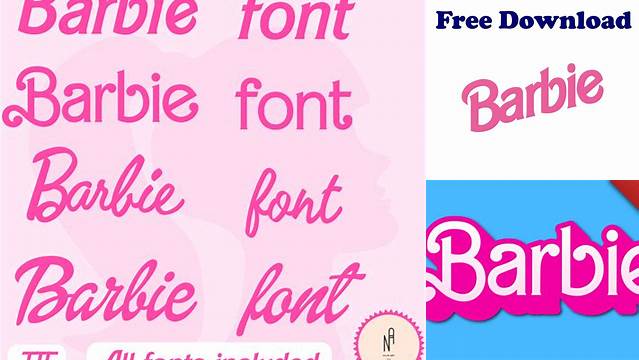
Understanding the Allure of Barbie Font
The Barbie font isn't just a typeface; it's a cultural icon. It evokes memories of childhood, playfulness, and the vibrant world of Barbie. Its bubbly, curvy design is instantly recognizable and adds a touch of whimsy to any project. Whether you're designing a birthday invitation, a social media graphic, or a fun presentation, the Barbie font can instantly elevate your creation and capture the essence of fun and femininity. The font's unique charm lies in its ability to transport viewers back to their carefree days, reminding them of the joy and imagination associated with the iconic doll. By incorporating this font, designers can tap into these nostalgic feelings and create a connection with their audience that goes beyond mere aesthetics.
Identifying the Real Barbie Font
Okay, so what exactly is the real Barbie font? The official font used for the Barbie logo and branding has evolved over the years. However, the most recognizable version is a custom typeface with distinctive, rounded letterforms. While the exact font might not be available for public download due to copyright restrictions, several similar fonts capture the essence of the Barbie aesthetic. Think playful, curvy, and slightly whimsical. When trying to identify the real Barbie font, pay close attention to the unique characteristics of each letter. Look for the rounded edges, the playful curves, and the overall sense of fun and femininity. The authentic Barbie font is more than just a typeface; it's a visual representation of the brand's identity and values. By understanding these characteristics, you can better distinguish the real font from imitations and ensure that your designs accurately reflect the Barbie aesthetic.
Where to Find Free Barbie Font Alternatives
Copy and Paste Barbie Font: Is It Possible?
Incorporating Barbie Font in Adobe Photoshop
If you're working with Adobe Photoshop, using the Barbie font is just as easy. Open Photoshop, create a text layer, and select your Barbie font from the font menu. You can then adjust the size, color, and other properties of the text to your liking. The Barbie font can be a great choice for creating eye-catching graphics, social media posts, or even website banners. Its unique and playful design can help you capture the attention of your audience and create a memorable visual experience. By mastering the use of the Barbie font in Photoshop, you can unlock your creative potential and create stunning designs that reflect the iconic Barbie brand.
Conclusion: Embrace the Playful Charm of Barbie Font
So, there you have it! Everything you need to know about the Barbie font, where to find alternatives, and how to use it in your projects. Embrace the playful charm of the Barbie font and let your creativity shine! Whether you're designing invitations, social media graphics, or crafts, the Barbie font can add a touch of magic and whimsy to your creations. Now go out there and make something Barbie-tastic!